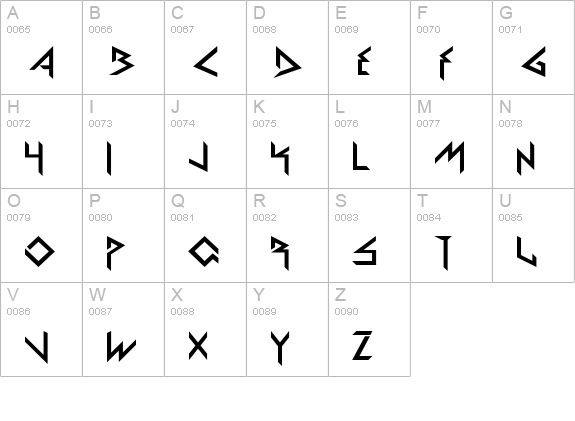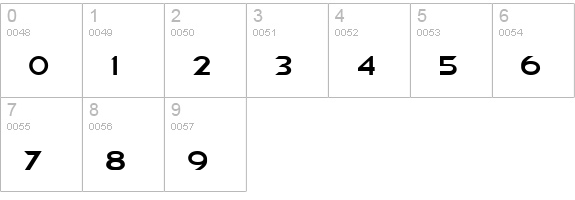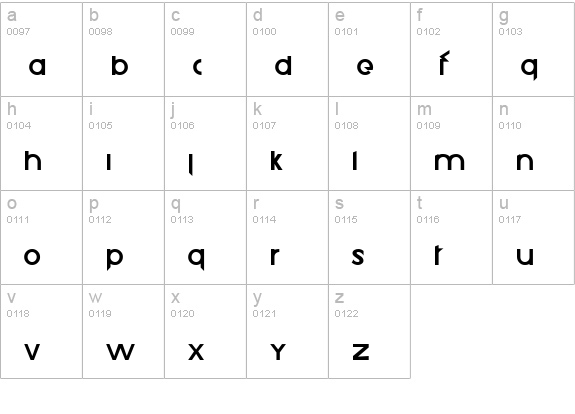
Rokford font is a striking and versatile typeface that effortlessly combines elegance with a touch of modernity. With its clean lines and sharp edges, this font exudes a sense of sophistication and professionalism that is perfect for a wide range of design projects. The Rokford font is available for free download at FontsMarket.com, making it accessible to designers and creatives looking to add a touch of style to their work without breaking the bank. Whether you're designing a logo, creating a poster, or working on a branding project, Rokford font is sure to make a statement and elevate your designs to the next level.